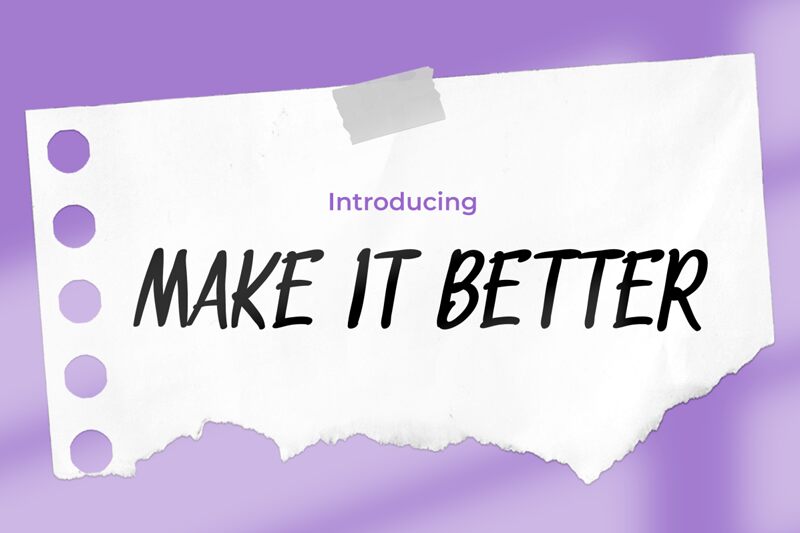
Make It Better font by Pinisiart is a free handwritten font with an energetic and relaxed style. Its informal tone is achieved through its casual letters that lack uniformity but form a great harmony altogether. Such combinations deliver the approachable-looking quality lacking from many typographical projects.
Using this font, whatever message you want to deliver will appear friendly and inviting to the reader. It’s ideal for flyers, blogs, personal websites, coffee shop menus, signs, invitations, posts for social media, and many other projects.